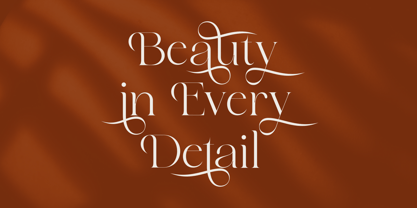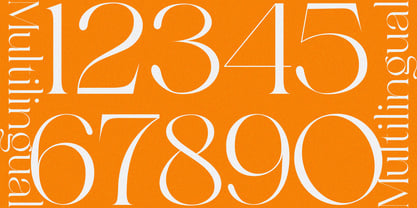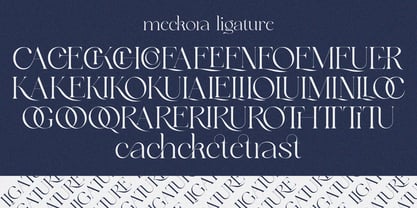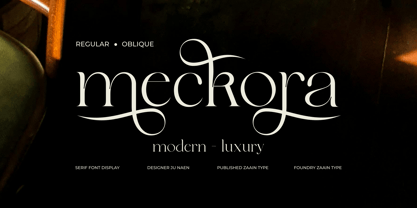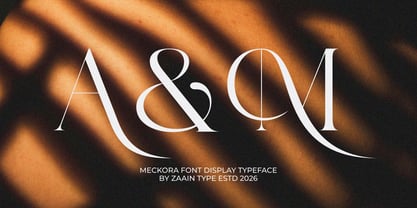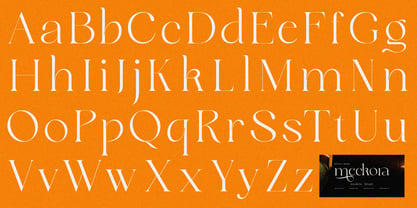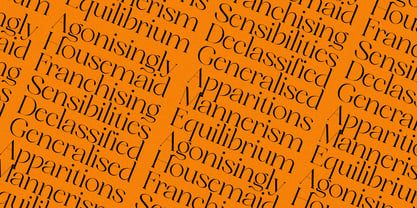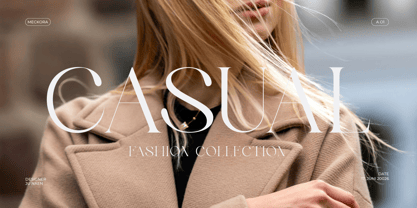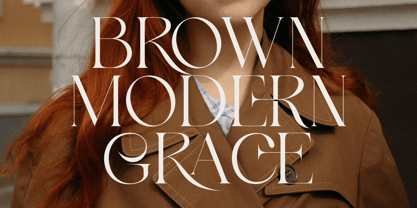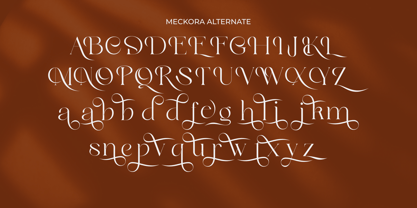
Meckora
by Zaain Type
The Meckora Font Family was designed by Ju Naen and published by Zaain Type. Meckora contains 2 styles and family package options. More about this family
Meckora is a refined serif font that blends timeless elegance with a modern touch. Designed with graceful curves and sophisticated contrast, Meckora brings a luxurious and stylish feel to every design. Perfect for branding, fashion editorials, logos, invitations, cosmetic packaging, and high-end typography, this font delivers beauty, class, and strong visual character in every letter